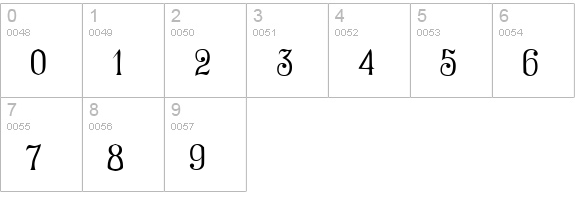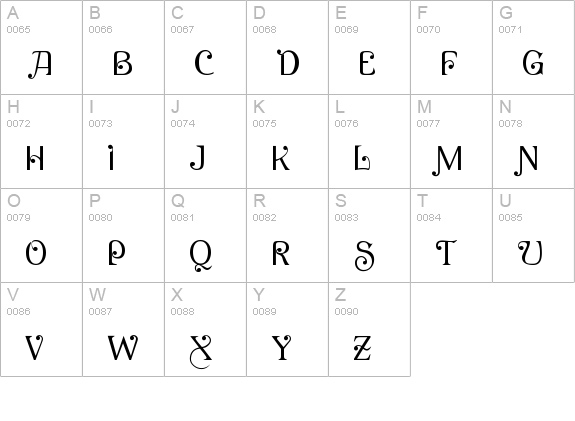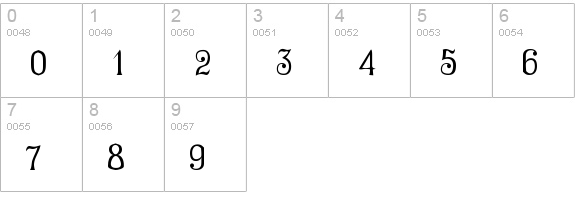
AcornSwash Roman Font Details
AcornSwash Roman is a stunning and versatile font that exudes elegance and sophistication. With its delicate swashes and intricate details, this typeface is perfect for adding a touch of class to any design project. Whether you're creating invitations, branding materials, or editorial pieces, AcornSwash Roman is sure to make a lasting impression. The best part? AcornSwash Roman is completely free to download at FontsMarket.com. You can easily access this beautiful font and elevate your designs without breaking the bank. Don't miss out on the opportunity to enhance your projects with this exquisite typeface that combines traditional elements with a modern twist. Download AcornSwash Roman today and take your designs to the next level!